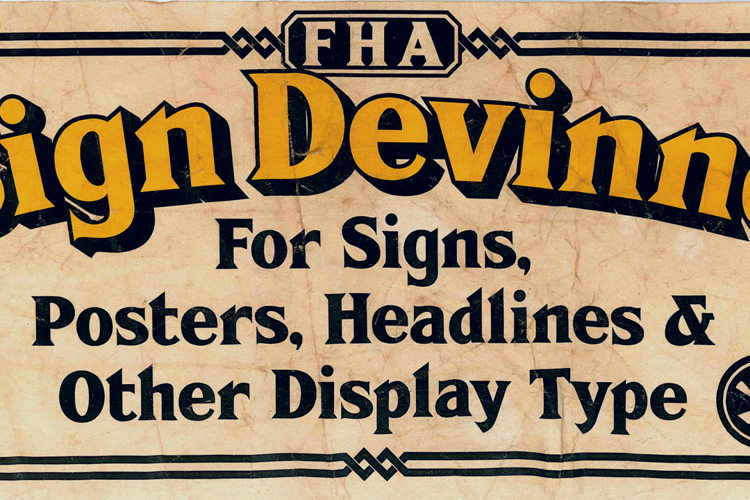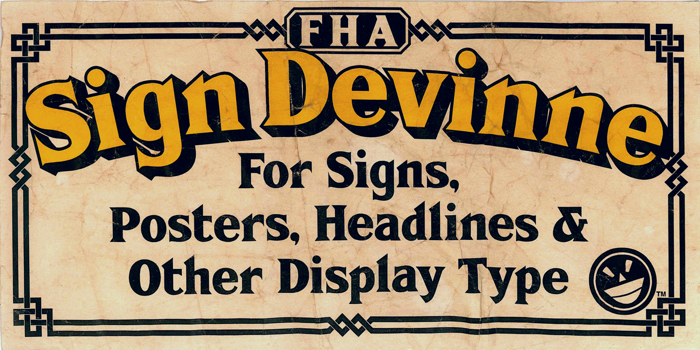
FHA Sign DeVinneNC Font
FHA Sign DeVinne ShadeNC Style
FHA Sign DeVinneNC Style
FHA Sign DeVinne is another in the series of updates/revivals from master sign painter F. H. Atkinson.
Designer's Comments:
Around the end of the 19th century, the print typeface De Vinne was released and became popular. But, this is not that story....
Once, long ago, there were no large format digital printers or vinyl cutters. Signs, posters, banners etc., were screen printed, in the case of mass production, or hand lettered. Sign painting was a difficult skill to master. Some young men apprenticed to more skilled sign painters to learn the craft. Others got some paint and brushes, maybe a how-to book and let the paint start flying. For the hand letterers there weren't fonts in the technical sense. Each painter would build a repertoire of forms. These forms defined broad categories - standard or block styles, roman styles, block serifs, scripts and casuals and the single stroke forms. If you wanted a bold you used a wider brush. Italic forms were a slanted block or serif form with script or casual flourishes and terminals. There were stove pipe forms that acted as condensed letter styles. Most clients accepted these limitations. But, there will always be clients who are difficult. These folks wanted a specific print font for their signs. In the digital age, it is a simple matter to purchase the font and run it through the plotter or digital printer and be done. Back in the day, those fellows had to adapt something they were practiced at to new serifs and terminals. Any new “font” had to be practiced until the painter could reproduce the letters with some confidence. DeVinne was popular enough that Frank Atkinson included it among his demonstrations fonts in his manual on sign painting. If you like bold serif fonts for display and headline type, FHA Sign DeVinne might be what you are looking for. Okay, so it is a revival of a Frank H. Atkinson classic, is that a bad thing? It is updated and modernized with an effort to clean up any pesky issues with character agreement. It seems a bit trite to say that Sign DeVinne is a face for a new millennial, but, there, we've said it. The font has clear bold strokes and a well defined character.